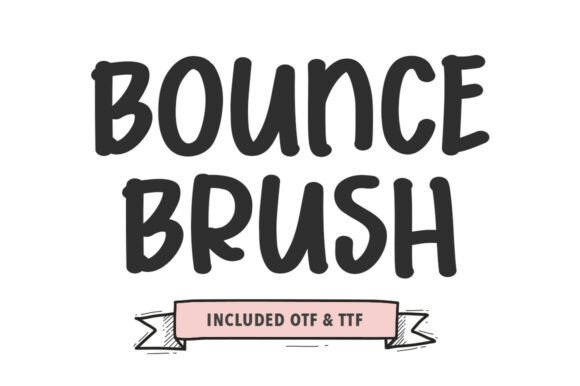
Adding a Splash of Personality to Your Designs
Have you ever stared at a blank canvas, feeling stuck and uninspired, only to pick up a paintbrush and let your creativity flow? The thrill of bringing a design to life with your own two hands is one of the most exhilarating experiences in the world of art and design.
That’s exactly the feeling you’ll get with the Bounce Brush Font – a bold and expressive typeface that captures the essence of natural brush strokes and organic textures. This free-spirited font is perfect for designers who want to add a touch of authenticity and personality to their work.
With the Bounce Brush Font, you can bring warmth, energy, and character to any project, from logos and branding to quotes and social media posts. Whether you’re a seasoned pro or just starting out, this font is sure to help you stand out from the crowd and make your designs truly unforgettable.
Bounce Brush Font Key Features
- Font Family: Bounce Brush, a hand-drawn brush script font
- Character Set: Includes 350 characters, including uppercase and lowercase letters, numbers, and punctuation marks
- Unique Characteristics: Features a playful, hand-painted feel with subtle texture and imperfections, perfect for creative and artistic projects
Bounce Brush Font Review
Overall, I think the Bounce Brush Font is a great addition to any designer’s toolkit. ✨ It has a playful, energetic feel that’s perfect for creative projects or brands that want to stand out from the crowd. The font’s varied letterforms and expressive strokes make it feel almost hand-painted, which can add a nice touch of whimsy to your designs.
- ✨ Unique and expressive letterforms
- ✨ Great for creative or playful projects
- ✨ Works well in both digital and print applications
- ⚠️ May be difficult to read in small text sizes or at a distance
- ⚠️ Can be overpowering if used in large quantities
- ⚠️ Limited language support (may not work well for non-Latin scripts)
Overall, I think the Bounce Brush Font is a great choice for designers who want to add some personality to their projects. Just be mindful of its limitations and use it thoughtfully to get the best results.
To get the most out of the Bounce Brush Font, try the following:
- Combine the Bounce Brush Font with other fonts for a unique look.
- Use the font in creative ways, such as in headings or titles.
The Bounce Brush Font is commonly used in:
- Invitations and event graphics.
- Marketing materials and advertisements.
Alternatives to Bounce Brush Font for Designers
Great Vibes is a beautiful, handwritten font that works well for titles, headings, and short paragraphs. It’s ideal for creating a fun and energetic atmosphere. Great Vibes is more elegant and refined compared to Bounce Brush Font, which makes it suitable for more formal and professional designs.
Carolyna Pro is a modern, script font that’s perfect for creating a luxurious and sophisticated look. It’s ideal for use in branding, packaging, and advertising. Carolyna Pro is more polished and sophisticated compared to Bounce Brush Font, which makes it suitable for high-end designs.
Alex Brush is a elegant, handwritten font that’s perfect for creating a romantic and whimsical atmosphere. It’s ideal for use in invitations, cards, and other personal designs. Alex Brush is more delicate and refined compared to Bounce Brush Font, which makes it suitable for more feminine and artistic designs.
Pacifico is a beautiful, script font that’s perfect for creating a relaxed and beachy atmosphere. It’s ideal for use in travel and leisure designs, as well as for creating a fun and casual vibe. Pacifico is more laid-back and casual compared to Bounce Brush Font, which makes it suitable for designs that need a more relaxed feel.